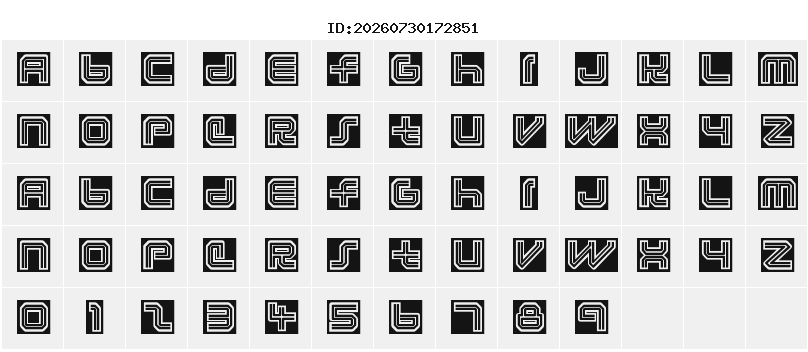
LunaEclipsed  Preview
• Font Name: LunaEclipsed
• Copyright: (c) 1998 by Ray Larabie, variation by Jeff Levine.
About LunaEclipsed .ttf
LunaEclipsed .ttf is a modern, elegant sans-serif font designed for ultimate readability and visual harmony. Perfect for branding, headlines, web design, and print materials.